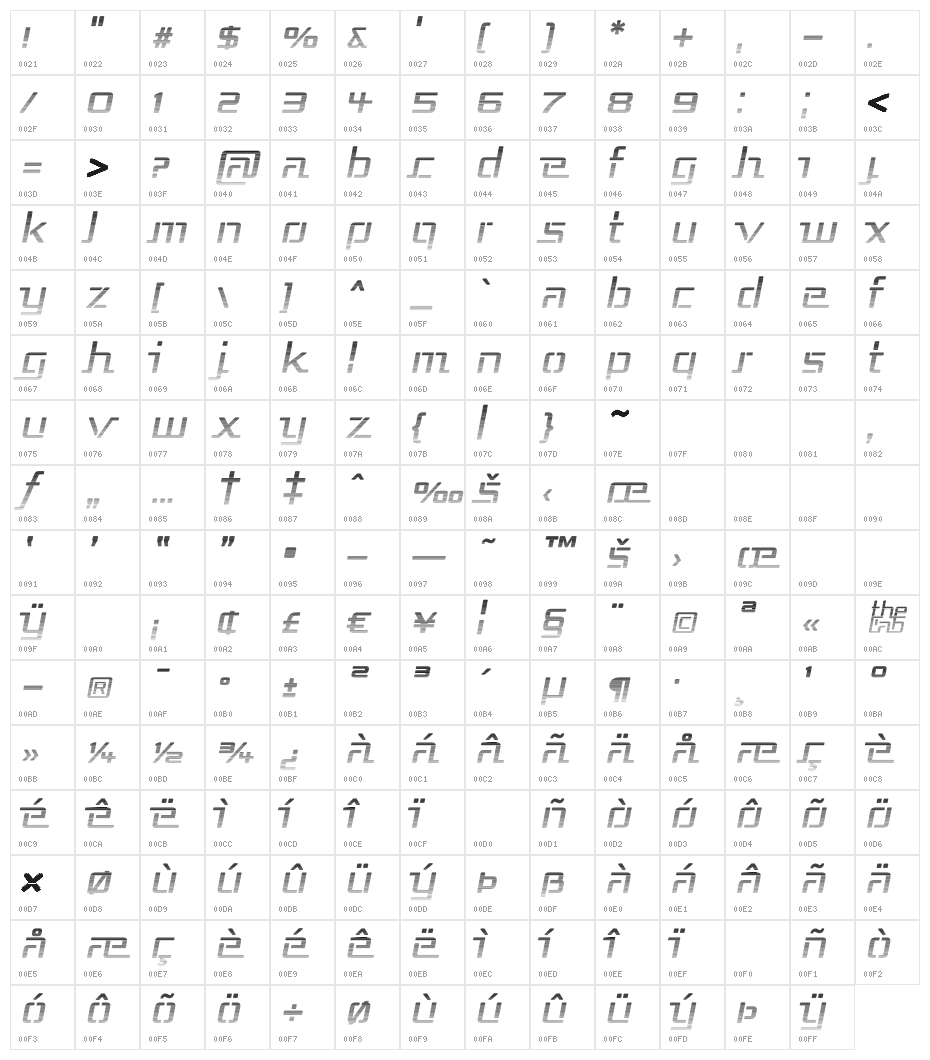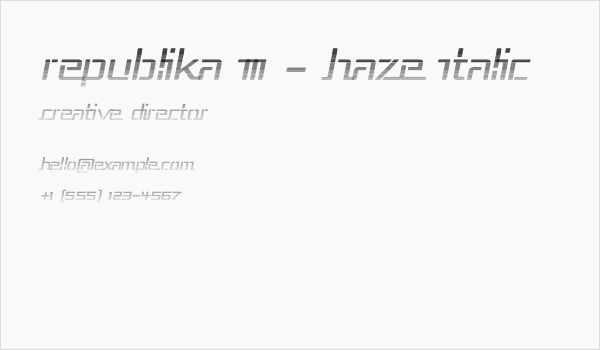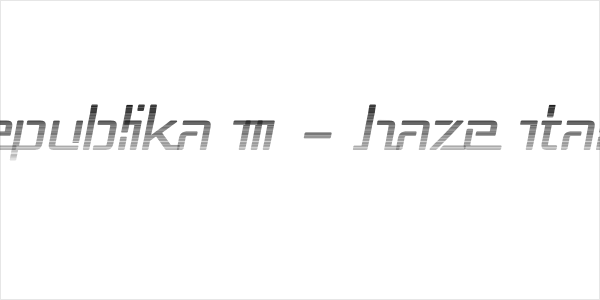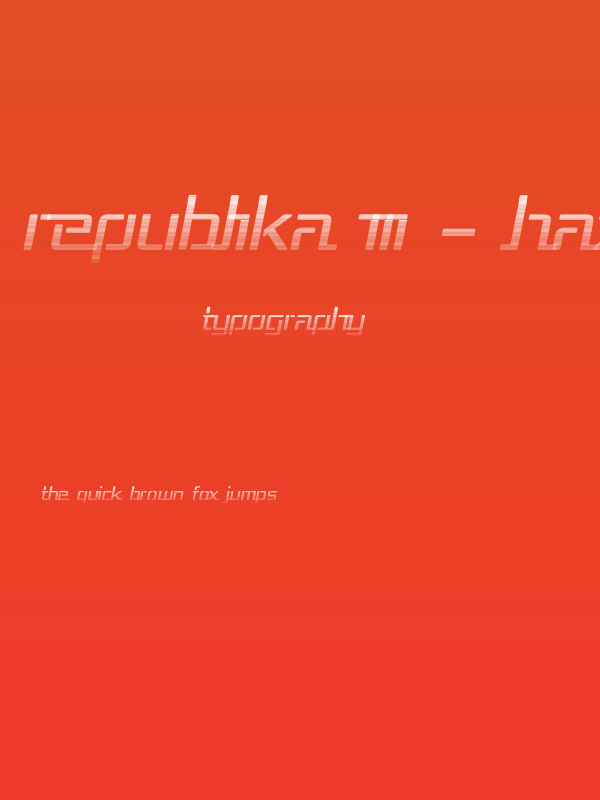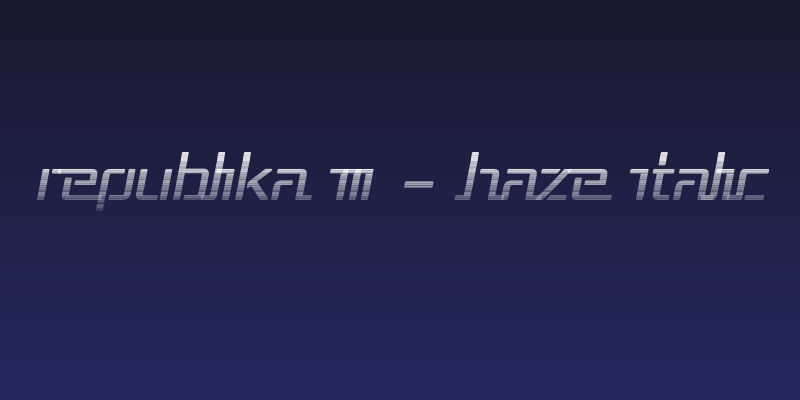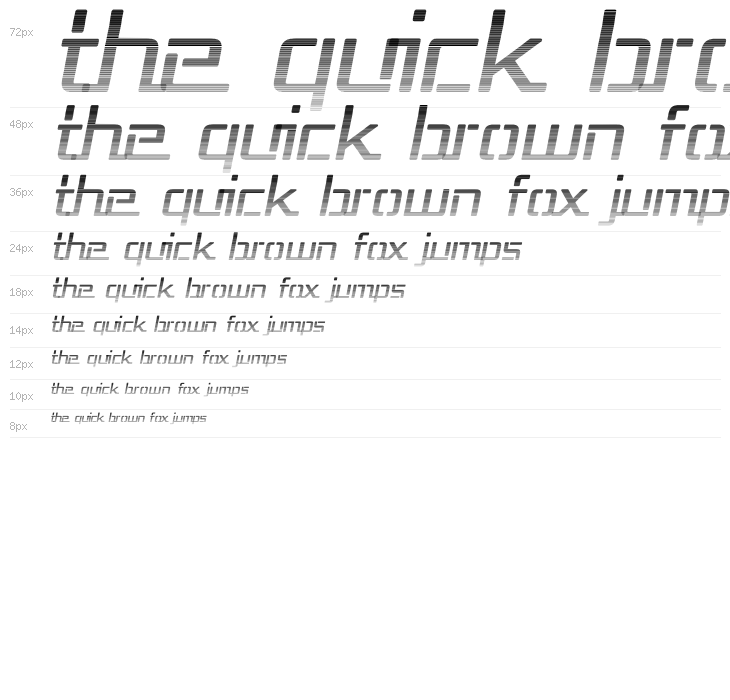
Republika III - Haze Italic Font
Republika III - Haze Italic Description
This font features a futuristic and dynamic style with a distinct italic slant, giving it a sense of motion and speed. The characters are constructed with a combination of solid and outlined segments, creating a unique layered effect. The design is sleek and modern, with a geometric structure that emphasizes horizontal lines. The font maintains a consistent stroke width throughout, contributing to its cohesive appearance. Its innovative design makes it suitable for projects that require a contemporary and edgy look.